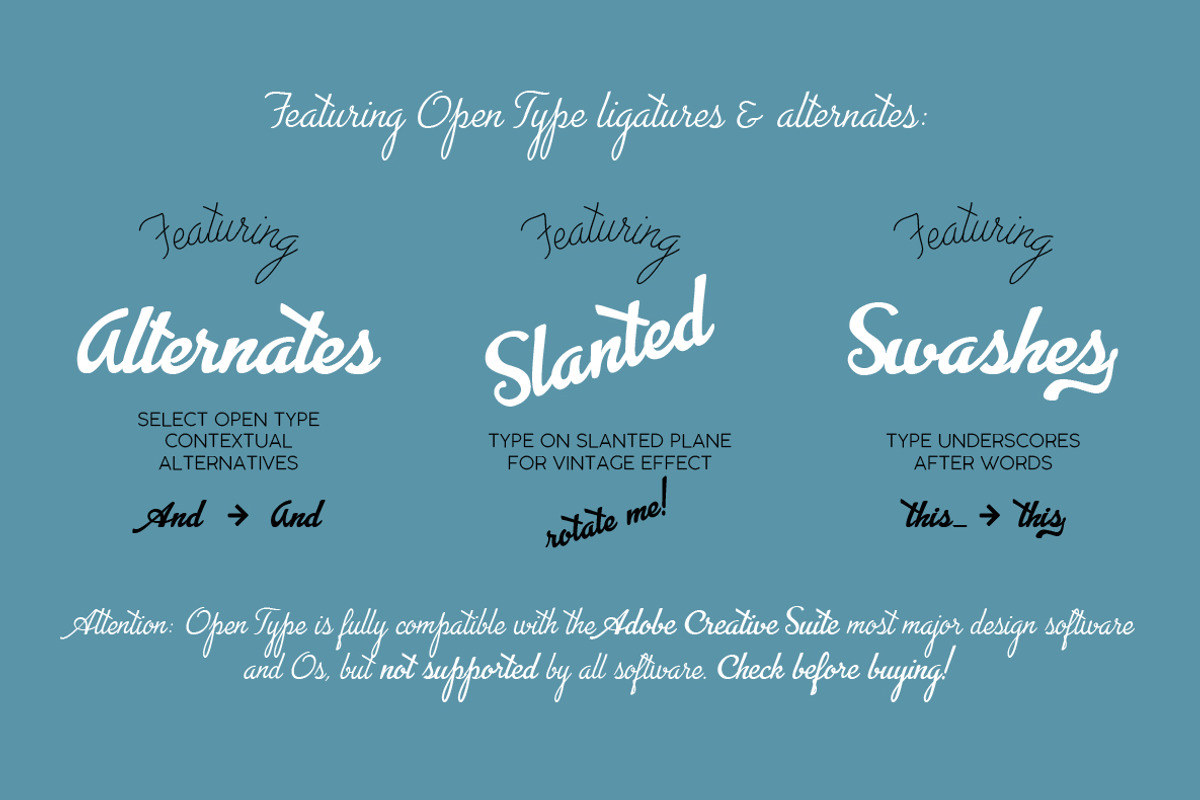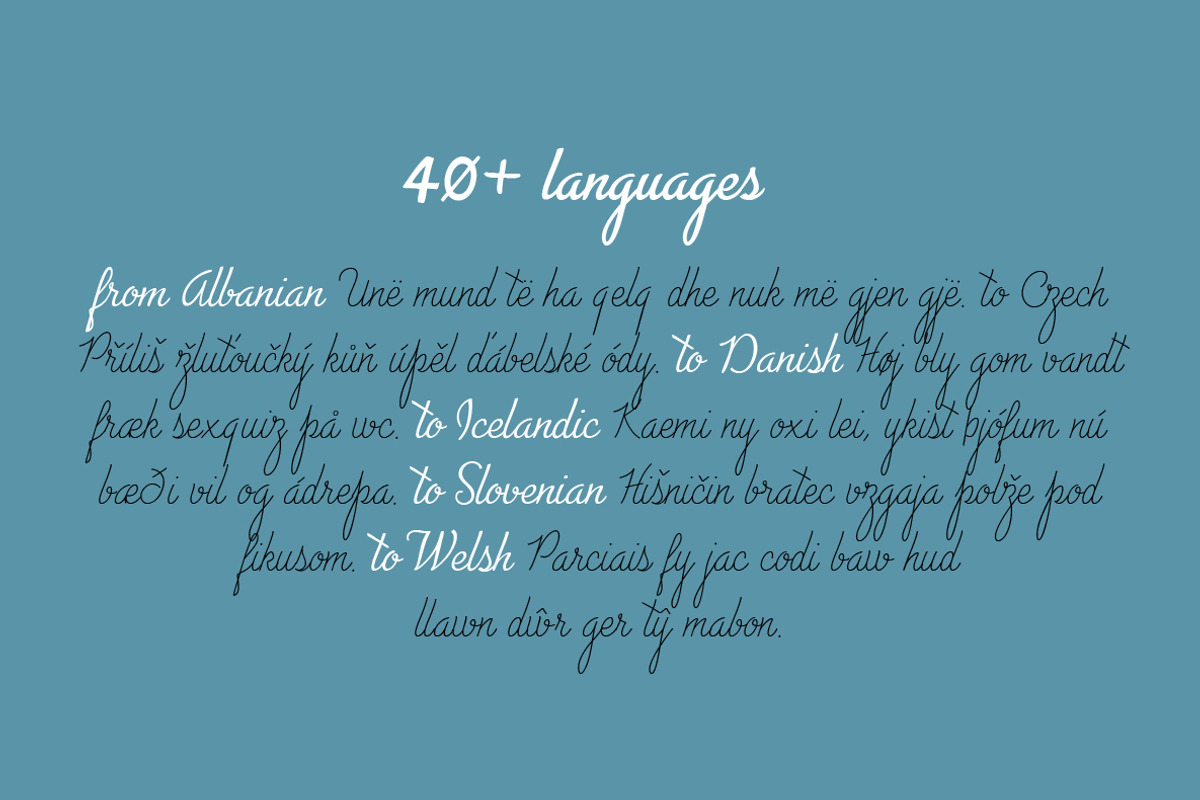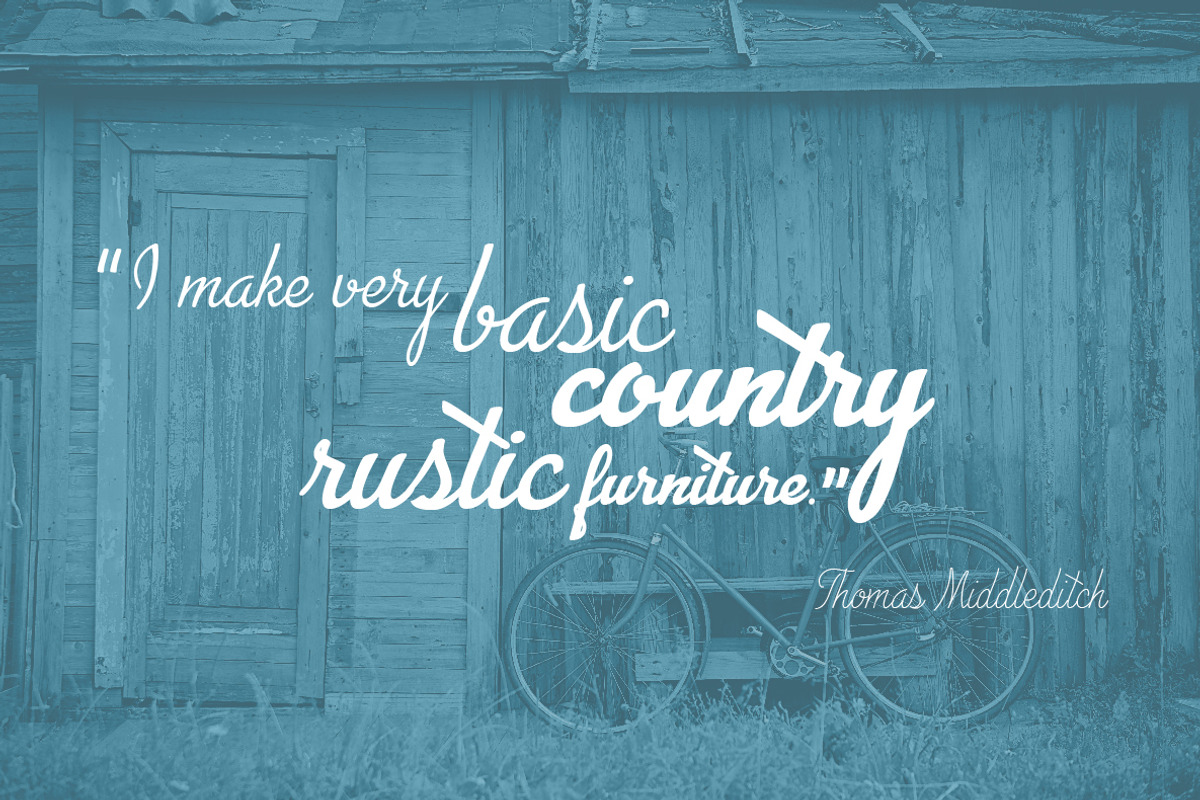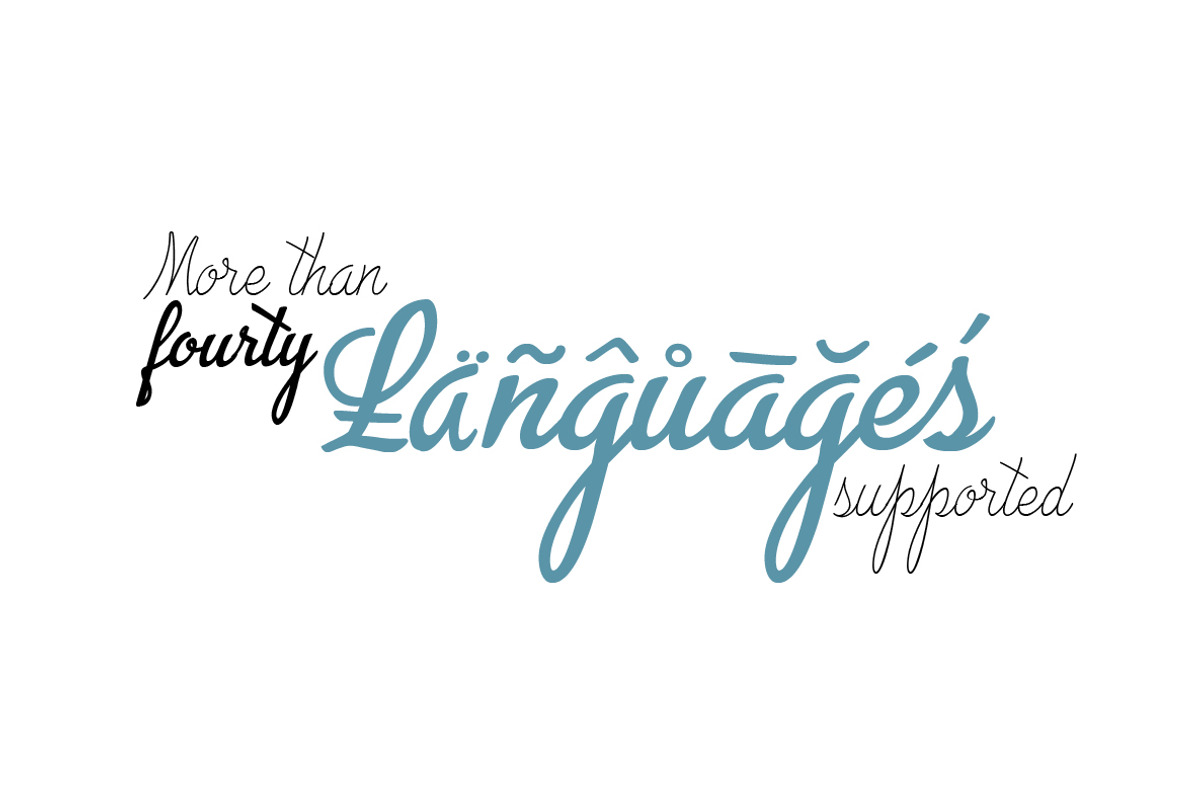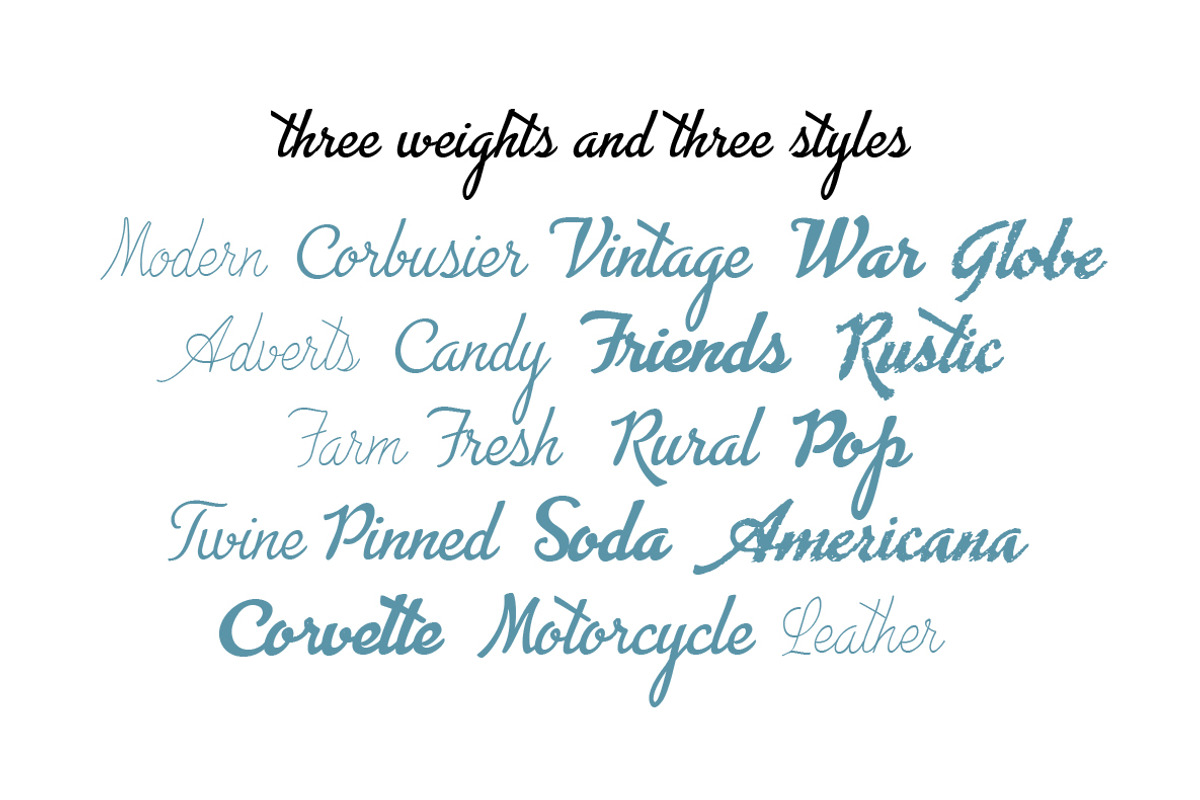
Advertising Script - 5 fonts
Advertsing Script is a brush script typeface inspired by a handmade sample drawn by the calligrapher Ross Frederic George and depicted in Speedball 1947 Textbook Manual. Advertsing Script has a vintage brush script look, perfect for food packaging, display and logo design and period advertising.
Advertising Script covers over 40 languages that use the Latin alphabet, with a full range of accents and diacritics. It comes in four weights plus a special monoline weight.
Advertising Script makes full use of Open Type ligatures to provide swashes, alternates and a wide array of ligature characters for a more handmade, natural look. Swashes can be accessed through glyph palette or by typing one to six underscores after the letter.